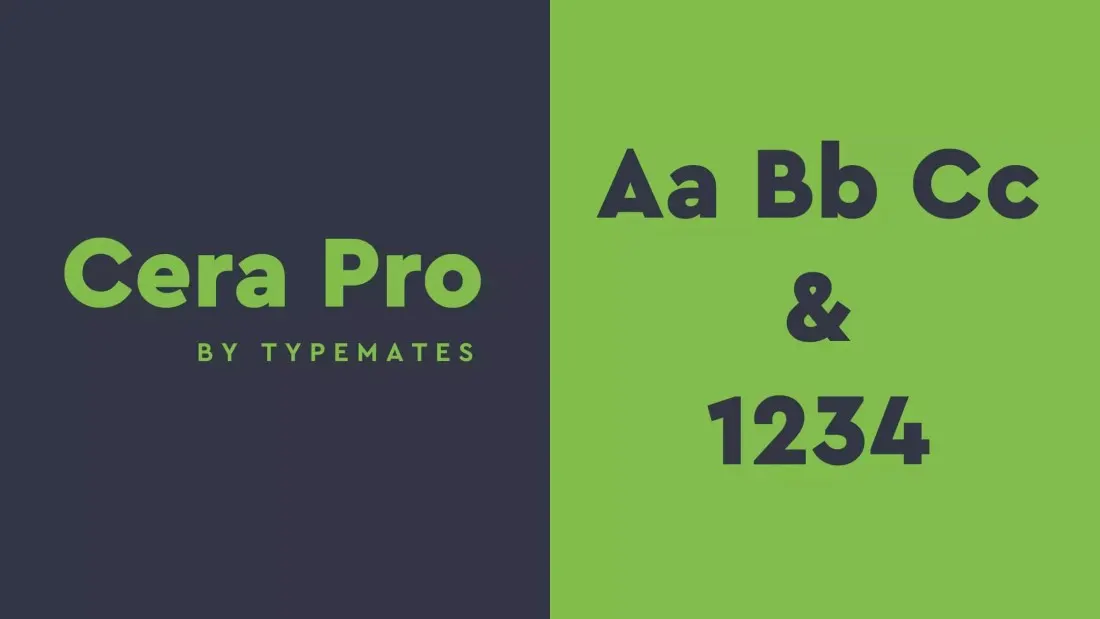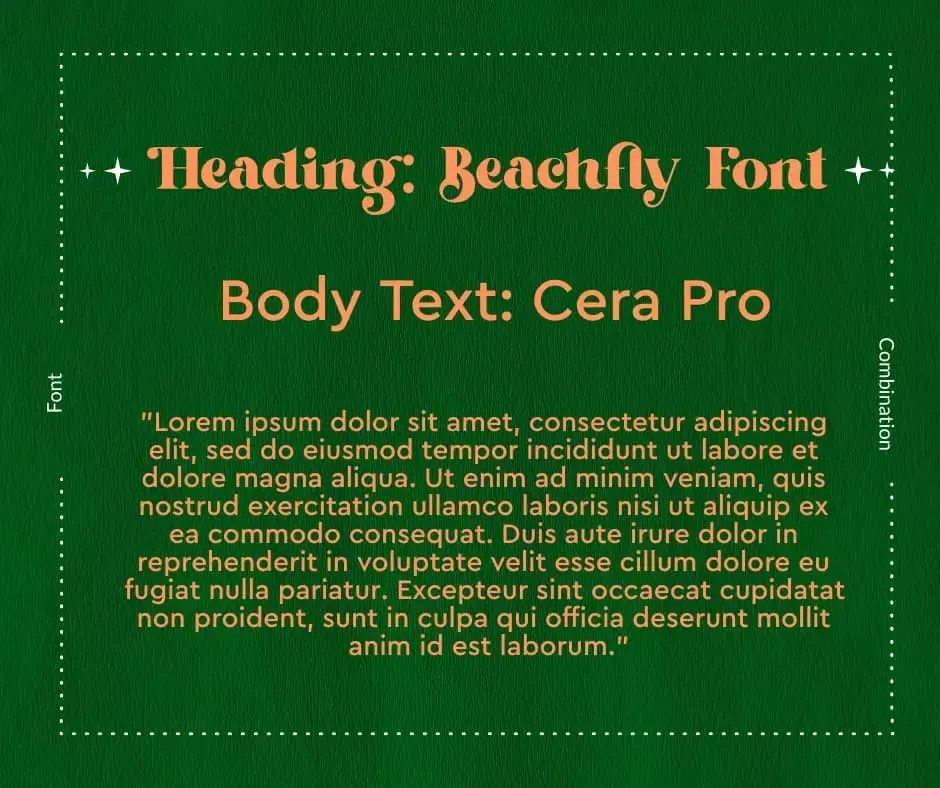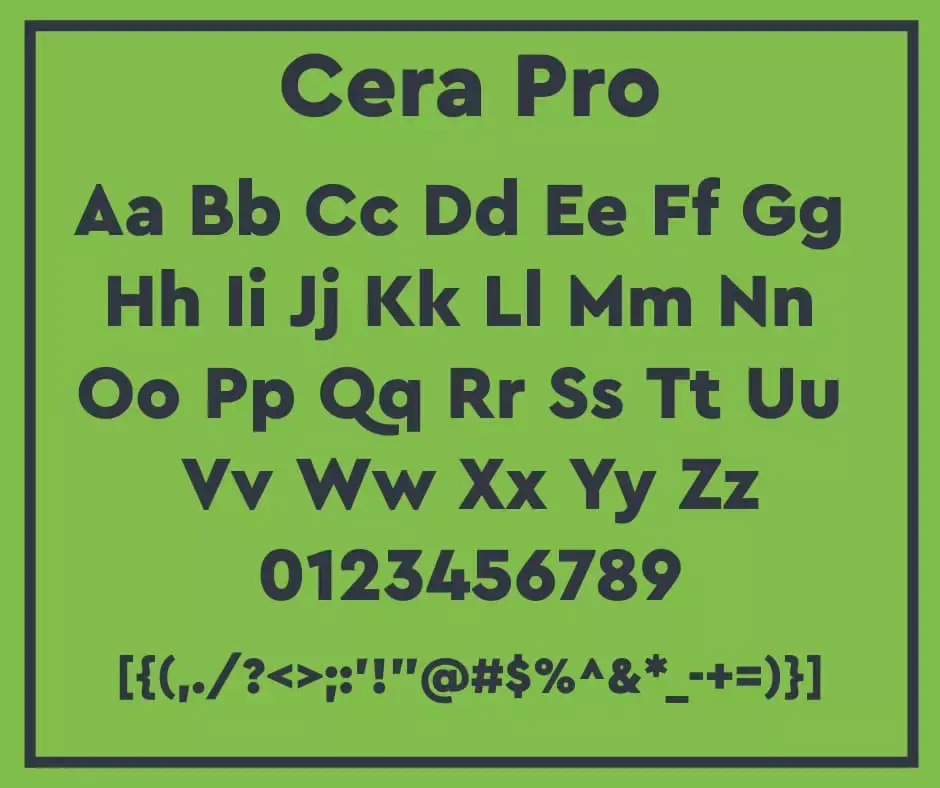
About Cera Pro Font
Cera Pro is a new font intended for print and on-screen use that offers a modern, distinctive and stylish design. It was designed by Jakob Runge and published by TypeMates. Cera Pro font is available for both Mac and Windows platforms. The typeface is characterized by simple forms and conveys simplicity, elegance, and a modern appearance. The six weights of this pan-European Cera Pro typeface, ranging from thin to black, provide a wide variety of expression for interfaces and corporate design in print, on-screen, and multiple languages. Here you can download the demo version of the Cera Pro Font. Download Cera Pro Font by clicking the download button below.
Cera Pro Sans-Serif font supports approximately 150 Latin, Cyrillic, and Greek languages, and Designer Jakob Runge created its non-Latin components in collaboration with local consultants. Cera is concerned with regional letterforms and has the OpenType capabilities to match, with over 980 glyphs per style. Cera Pro features large x-height and compact caps. TrueType documents for web and desktop fonts now include a guide for better on-screen performance. It also includes all of the necessary dingbats and arrows.
All OpenType Features included:
Access All Alternates, Case Sensitive, Contextual Alternates, Capital Spacing, Denominator, Fractions, Kerning, Ligatures, Lining Figures, Localized Forms, Numerators, Ordinals, Oldstyle Figures, Proportional Figures, Stylistic Alternates, Scientific Inferiors, Stylistic Sets 1–3, Subscript, Superscript, Tabular Figures, Slashed Zero.
It’s designed for legibility and readability, with smooth curves and open letterforms that are legal for web pages and easy on the eyes. Cera Pro font should be on your list of favorites if you are a graphic designer. You may design logos, banners, brochures, posters, presentations, book covers, and business cards, among other things. So if you want to add high-quality typography to your project, then Cera Pro is the best tool for you to work with.
Fonts Similar To Cera Pro
- Avenir.
- Gotham.
- Century Gothic.
- Brandon Text.
- Arquitecta.
- Core Sans A.
- Proxima Nova.
- Museo Sans.
Cera Pro Font Combination
The typography industry is booming with new ideas and advancements, but there are some basic do’s and don’ts when it comes to font combinations. Look, Cera Pro is perfect for both headings and small text because of its six weights. You guys can use Cera Pro Bold/Black for titles, and the regular one is for small text. But if you want to give your design a vintage as well as a polite look, you can use the Beachfly by Type factory font in the title.
Is Cera Pro A Good Font?
Yes, Cera Pro is good for print and on-screen use that offers a modern, distinctive and stylish design.
What Type Of Font Is Cera Pro?
Cera Pro is a Sans-Serif font designed by Jakob Runge and published by TypeMates.